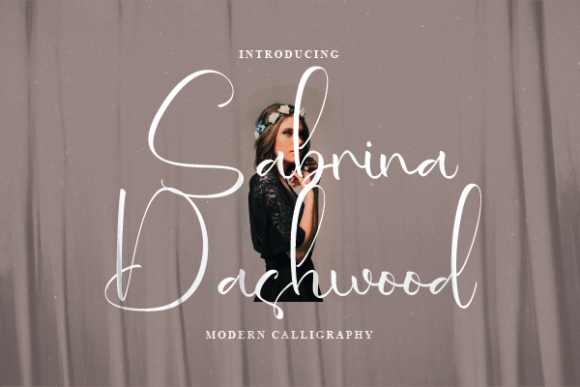
Indulge in the whimsical charm of Sabrina Dashwood Font, a captivating script that transports your creations to a realm of enchantment. Its graceful curves and playful swashes evoke a touch of nostalgia, making it the perfect choice for any discerning designer.
Crafted with meticulous care, each letter in the Sabrina Dashwood Font family dances across the page, whispering tales of elegance and sophistication. The delicate strokes and graceful flourishes add a touch of whimsy and delight, making your designs truly unforgettable.
Whether you're crafting enchanting invitations, heartfelt letters, or eye-catching website designs, Sabrina Dashwood Font will elevate your creations to new heights. Its versatility extends from personal correspondence to professional presentations, ensuring that your message will always leave an enduring impression.
Immerse yourself in the world of Sabrina Dashwood Font, where imagination and creativity intertwine to create something truly extraordinary. Let your words take flight, carried by the ethereal beauty of this exquisite script. Experience the joy of transforming ordinary designs into captivating works of art, all thanks to the magic of Sabrina Dashwood Font.